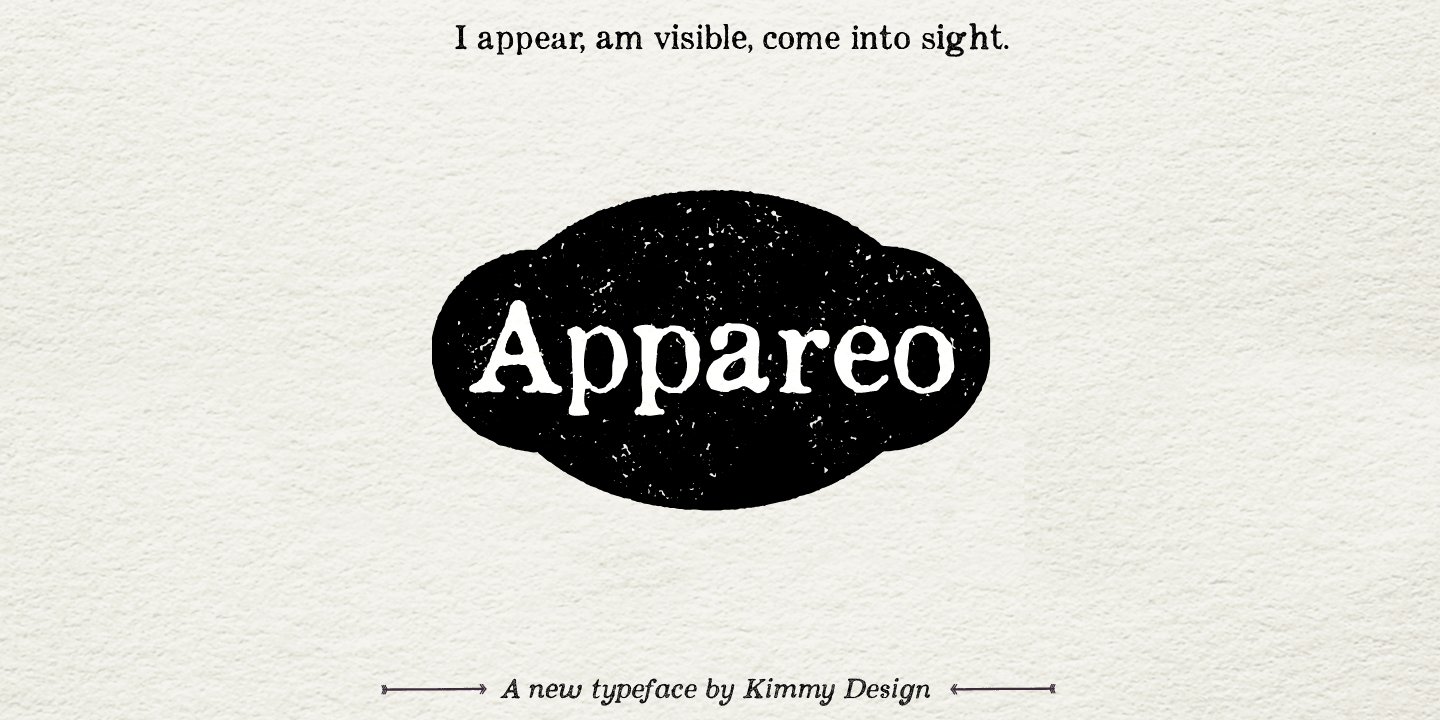
Looking to imbue your designs with a touch of modern innovation and distinctive visual appeal? Appareo Font Free Download offers an exciting opportunity to explore a contemporary and versatile typeface. Please remember, however, that while an Appareo Font Free Download might be available for personal and testing purposes, a commercial license is required for any professional or revenue-generating projects. This ensures legal compliance and provides essential support to the talented font designers.
The Appareo Font is exceptionally well-suited for projects that demand a fresh, cutting-edge, or subtly unconventional aesthetic. Its often clean lines, unique character shapes, or unexpected visual elements make it an excellent choice for tech branding, innovative startups, and modern website interfaces. It's ideal for app design, digital publications, and impactful advertising campaigns where a forward-thinking and memorable look is desired. Furthermore, consider Appareo Font for creative portfolios, artistic installations, and any design aiming to break from the ordinary and present information in a visually engaging way. Its distinctive presence can also elevate event promotions and motion graphics.
What makes the Appareo Font so exciting is its inherent ability to surprise and engage the viewer while maintaining a high level of legibility. It often features subtle quirks or innovative structural details that set it apart from more conventional typefaces, giving your text a truly unique personality. This characteristic allows it to communicate a sense of creativity, exclusivity, and modern flair, making your message resonate with an audience that appreciates thoughtful and original design. It's a font that doesn't just display text; it makes a statement, adding a layer of contemporary artistry and captivating appeal to any creative endeavor. Its distinctive aesthetic ensures your work will stand out with memorable impact and a refined presence.
The Appareo Font family typically offers a range of weights to maximize its utility and allow for diverse typographic expressions. You'll often find options from Light and Regular to Medium, SemiBold, and Bold, usually accompanied by corresponding italic styles. More extensive families might even include Thin or Black weights, providing even greater flexibility for creating distinct visual impacts, from delicate headlines to strong emphasis. This broad spectrum ensures designers can maintain a consistent visual theme while adapting the font to diverse design needs and contexts.